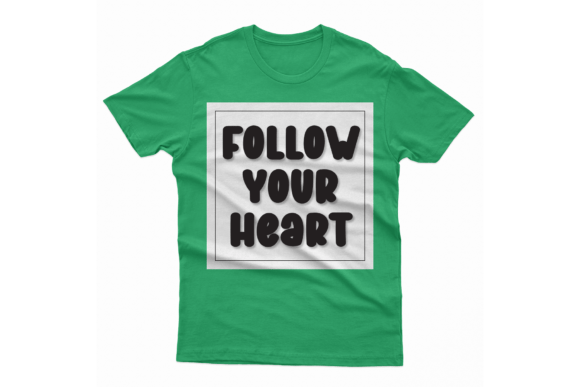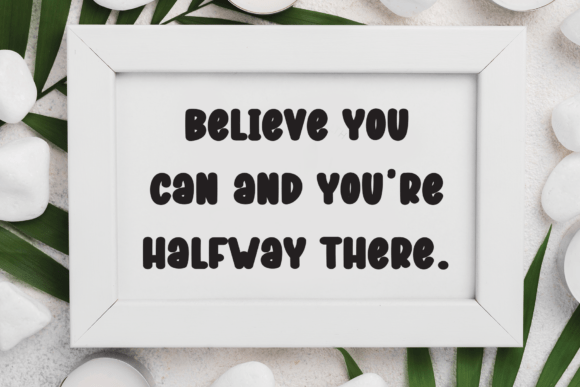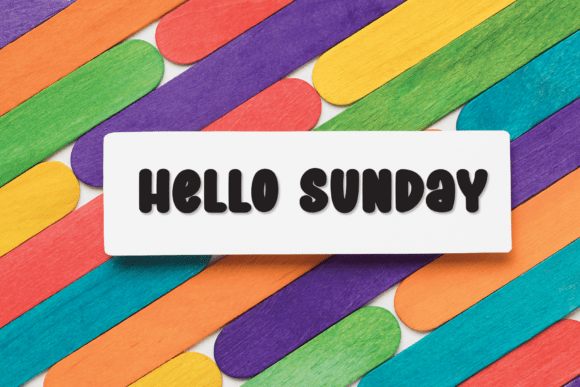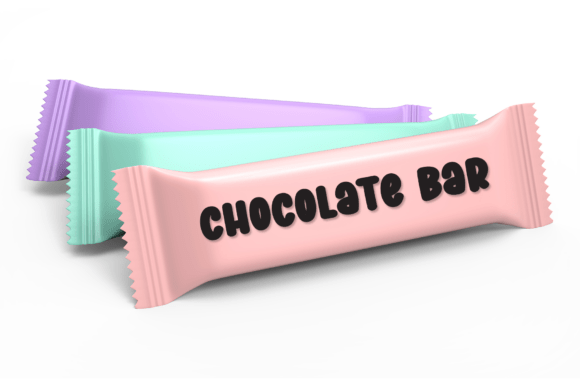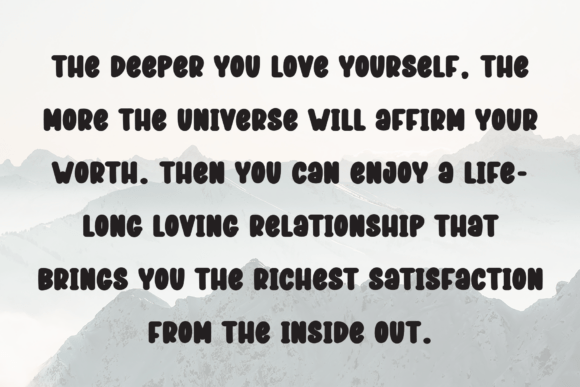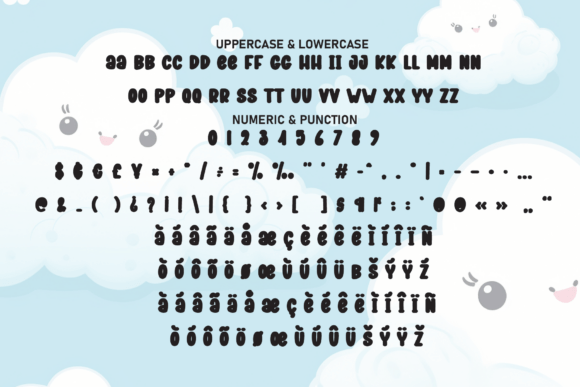
Cute Dream Font: The Ultimate Playful Display Font for Fun and Whimsy
Are you looking for a font that exudes fun, approachability, and a touch of whimsy? Look no further than Cute Dream Font, an incredibly playful and chunky display font that’s perfect for capturing a youthful, handmade feel. In this article, we’ll dive into the world of Cute Dream Font, exploring its unique features, uses, and benefits for designers and crafters.
The Cute Dream Font Difference
Cute Dream Font is an extra-bold, smoothly rounded display font that radiates fun and approachability. Its soft, bubble-like appearance makes it an ideal choice for projects that require a simple, joyful, and unforgettable headline. The font’s chunky letterforms are carefully crafted to give it a handmade, whimsical feel that’s perfect for children’s branding, cute packaging, adorable social media graphics, and more.
Key Features of Cute Dream Font
- Extra-Bold Letterforms: Cute Dream Font features extra-bold letterforms that make it perfect for headlines, titles, and short phrases.
- Smoothly Rounded Edges: The font’s smoothly rounded edges give it a soft, bubble-like appearance that’s both fun and approachable.
- Playful and Whimsical: Cute Dream Font is designed to evoke a sense of playfulness and whimsy, making it perfect for projects that require a youthful and carefree feel.
- Handmade Feel: The font’s chunky, hand-crafted letterforms give it a handmade feel that’s perfect for crafters, designers, and makers.
Uses for Cute Dream Font
Cute Dream Font is an incredibly versatile font that can be used in a variety of projects, including:
- Children’s Branding: Cute Dream Font is perfect for children’s branding, including logos, packaging, and marketing materials.
- Cute Packaging: The font’s playful and whimsical feel makes it ideal for cute packaging, including labels, stickers, and product packaging.
- Adorable Social Media Graphics: Cute Dream Font is perfect for creating adorable social media graphics, including Facebook posts, Instagram stories, and Twitter headers.
- Headlines and Titles: The font’s extra-bold letterforms make it perfect for headlines and titles, including posters, flyers, and brochures.
Cute Dream Font offers a range of benefits for designers and crafters, including:
- Easy to Read: The font’s extra-bold letterforms make it easy to read, even at small sizes.
- Highly Versatile: Cute Dream Font can be used in a variety of projects, from children’s branding to social media graphics.
- Time-Saving: The font’s playful and whimsical feel saves designers and crafters time and effort, as it eliminates the need to create custom lettering.
Tips for Using Cute Dream Font
To get the most out of Cute Dream Font, here are a few tips to keep in mind:
- Use it for Headlines: Cute Dream Font is perfect for headlines and titles, so use it to grab attention and add visual interest.
- Pair it with Other Fonts: Cute Dream Font can be paired with other fonts to create a unique and visually appealing design.
- Experiment with Colors: The font’s playful and whimsical feel lends itself well to bright, bold colors, so don’t be afraid to experiment.
- Keep it Simple: Cute Dream Font is perfect for simple, short phrases, so keep your design simple and concise.
Cute Dream Font is an incredibly playful and chunky display font that’s perfect for capturing a youthful, handmade feel. With its extra-bold letterforms, smoothly rounded edges, and whimsical feel, it’s ideal for children’s branding, cute packaging, adorable social media graphics, and more. Whether you’re a designer or crafter, Cute Dream Font is a versatile and cost-effective solution that’s sure to bring a touch of fun and whimsy to your projects.